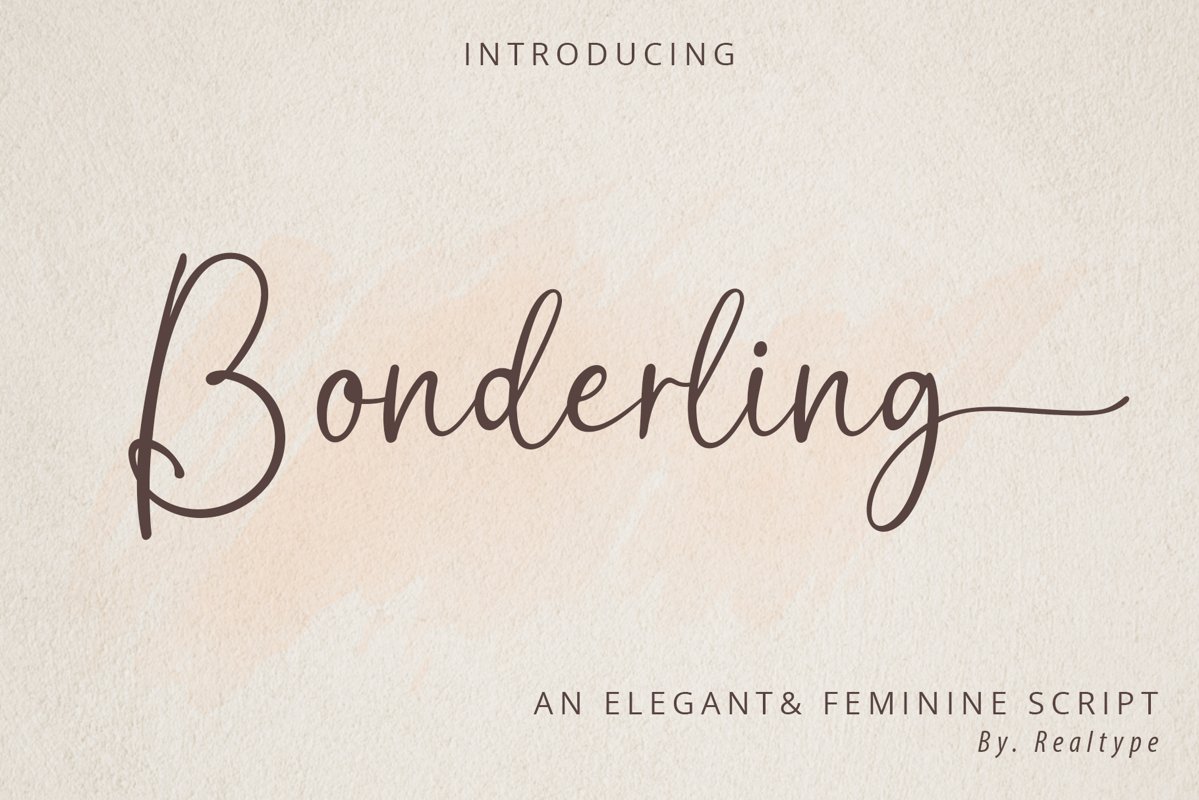
Bonderling
Bonderling Fonts consist of sophisticated, elegant, classy and modern handwriting.
With a little dirty curvature and made from the typography of new trends, This font
will give you a design that looks fresh and modern.
Bonderling, with a soft style and has an elegant nuances, classy and natural.
Perfect to get a more charismatic impression or unique touch to your projects
and branding, greeting cards, wedding, banner, name card, lettering, fonts pairing, etc.
Try mixing your design with this font. Don't hesitate to pair with
serif or serif in your work idea. Find interesting layouts to complement your project.